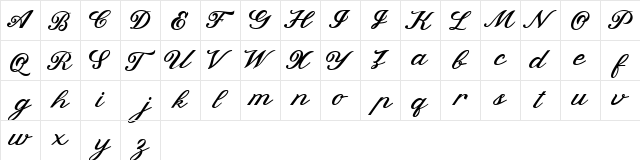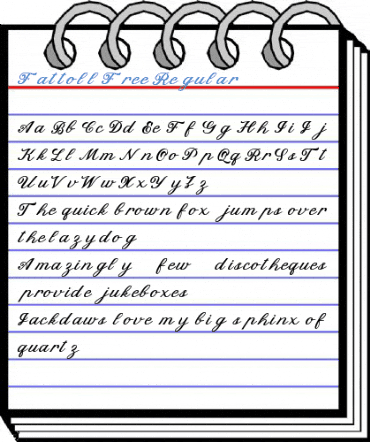
Complete Fattoll Free Regular glyph index. Displaying only characters natively supported by Fattoll Free Regular font.
Fattoll Free is a composed and adaptable typeface that performs quietly and consistently across a wide range of design contexts.